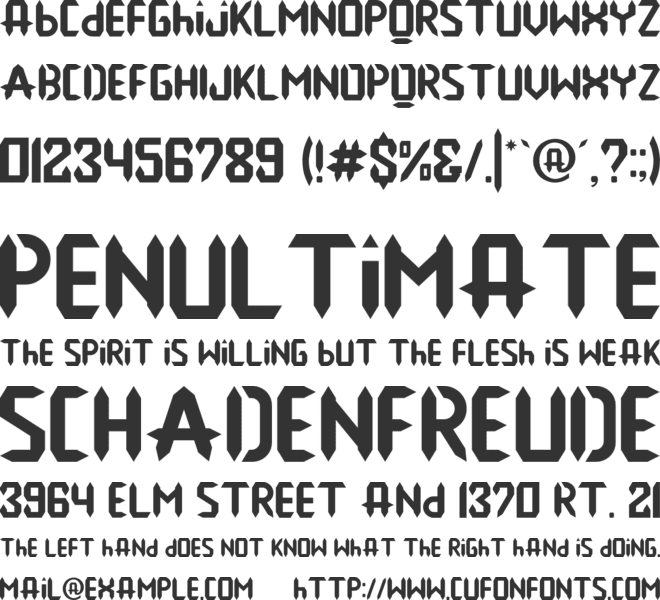
xdevilix Font
Display Studio
Introducing our new release, Xdevilix A Space Display Type Font. This typeset is perfect for brand logo, invitations, greeting card, or even any kind of project. With multilingual feature and style variations, this typeface would further enhance the aestethical aspect of your work.Visit our website :https://displaytypefont.com/product/xdevilix/